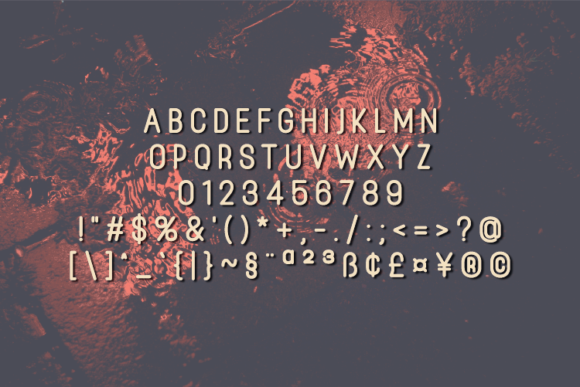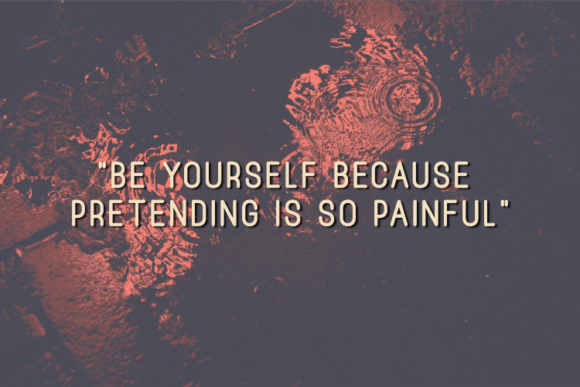
Doglest Font: Elevate Your Designs with a Minimal and Neat Sans Serif Font
In the world of typography, a font can make or break a design. A well-chosen font can elevate your creative project, making it stand out from the crowd. If you’re a designer or crafter looking for a versatile and stylish font, look no further than Doglest. This minimal and neat sans serif font is perfect for a wide range of projects, from branding and advertising to crafting and DIY tutorials.
What is Doglest Font?
Doglest is a modern sans serif font that exudes simplicity and elegance. Its clean lines and minimalist design make it an excellent choice for designers who want to add a touch of sophistication to their work. The font’s neutral and uncluttered appearance allows it to blend seamlessly with various design styles, making it an incredibly versatile addition to any creative project.
Key Features of Doglest Font
- Minimalist Design: Doglest’s simple and uncluttered design makes it perfect for designs that require a clean and elegant look.
- Sans Serif: The font’s sans serif style gives it a modern and sleek appearance, making it ideal for digital and print designs.
- Highly Versatile: Doglest can be used for a wide range of projects, from branding and advertising to crafting and DIY tutorials.
- Easily Readable: The font’s clear and concise design ensures that your text is easily readable, even at small sizes.
How to Use Doglest Font in Your Designs
Doglest is an incredibly versatile font that can be used in various design projects. Here are a few ideas to get you started:
- Branding and Advertising: Use Doglest to create modern and sleek logos, business cards, and brochures.
- Crafting and DIY Tutorials: Add a touch of elegance to your crafting and DIY tutorials with Doglest’s clean and minimalist design.
- Digital Designs: Use Doglest in your digital designs, such as website headers, social media graphics, and email newsletters.
- Print Designs: Add Doglest to your print designs, including posters, flyers, and business cards.
Why Choose Doglest Font?
With so many fonts available, why choose Doglest? Here are a few reasons why Doglest stands out:
- Unique and Modern Design: Doglest’s minimalist design sets it apart from other fonts, making it perfect for designers who want to add a touch of modernity to their work.
- Highly Versatile: Doglest can be used for a wide range of projects, making it an excellent addition to any designer’s font library.
- Easily Readable: The font’s clear and concise design ensures that your text is easily readable, even at small sizes.
In conclusion, Doglest is a minimal and neat sans serif font that can elevate your designs and make them stand out. Its versatility, readability, and modern design make it an excellent choice for designers and crafters looking for a stylish and elegant font. Whether you’re working on a branding project, crafting tutorial, or digital design, Doglest is an excellent addition to your creative toolkit.